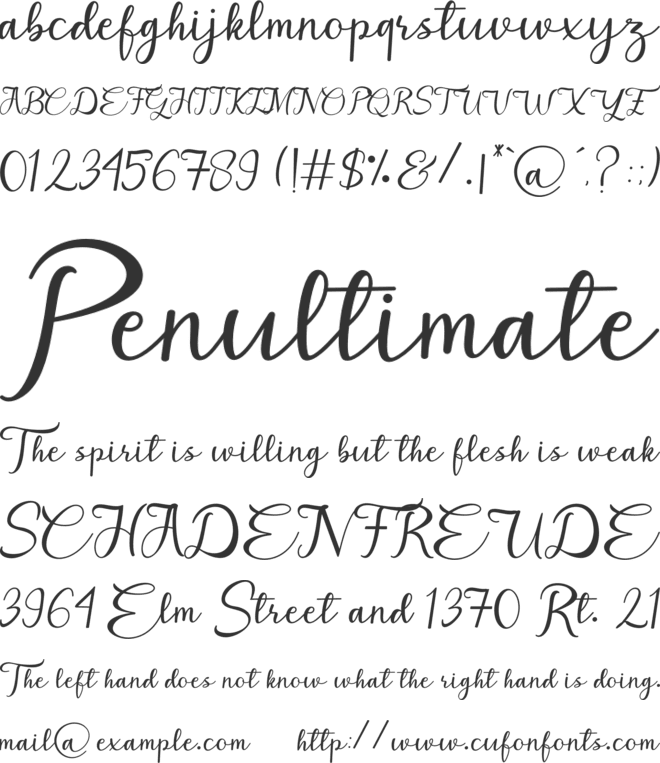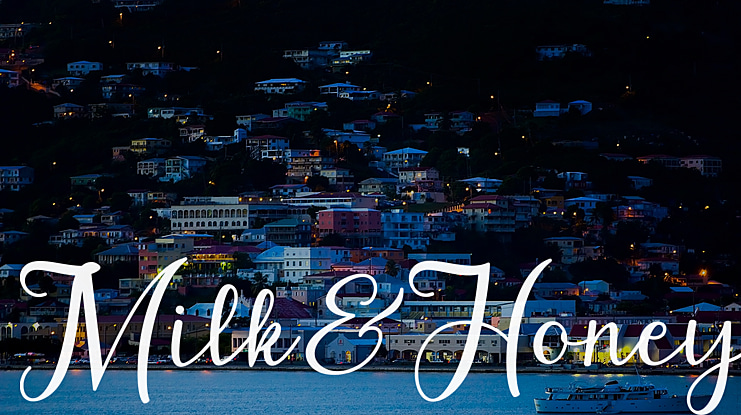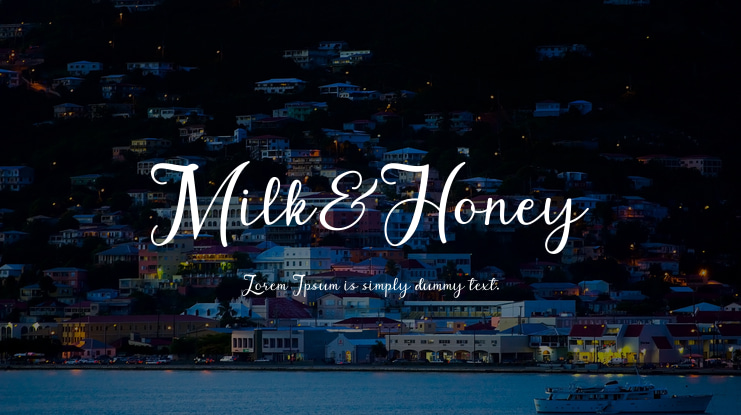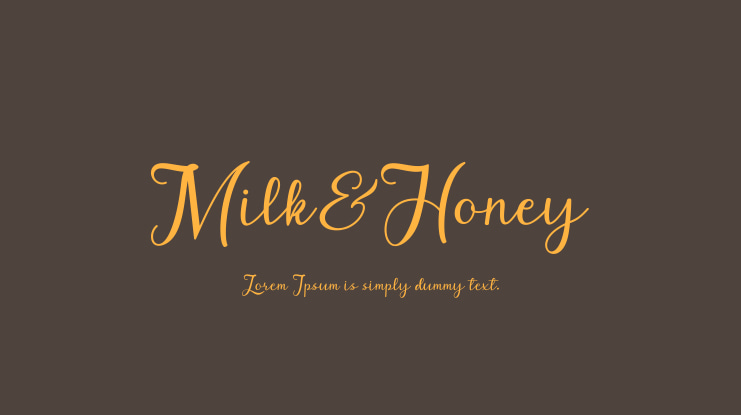
Milk&Honey Font
Hello everyone introduce my new font, Milk & Honey. Milk & Honey is a beautiful and elegant script font that is perfect for your needs such as packaging, photography, magazines, quotes, and beautiful writing, etc. . You will get OTF and TTF files from this Milk & Honey font. thank you and happy new year warm greetings, fikry if you want this font commercial use,please visit link below https://fontbundles.net/fikryal/181967-milk-and-honey-script-handwritten
Milk&Honey font preview